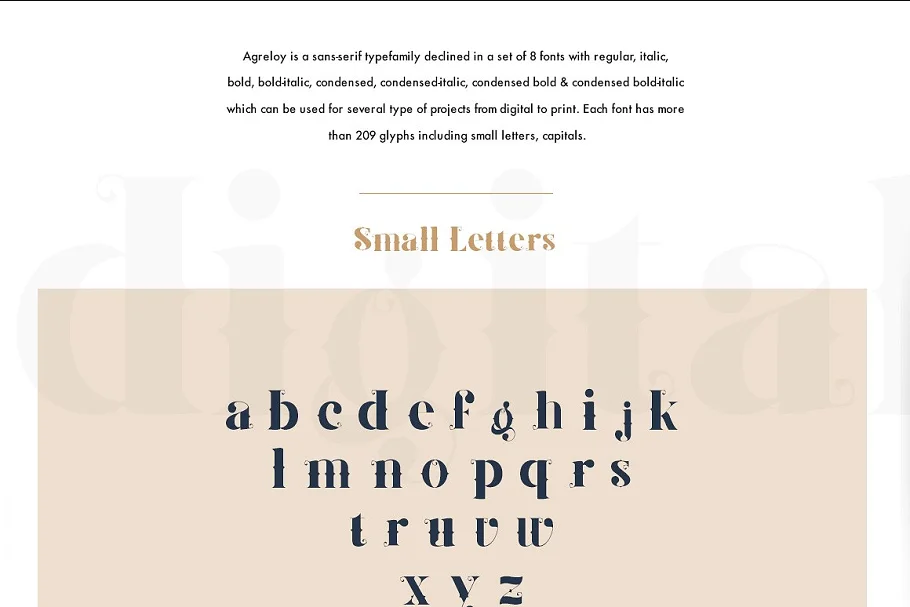
About the Agreloy Typeface Font
Introducing a new typeface called Agreloy which is perfect for Logo, Logo type, quotes, apparel design, invitations, flyers, posters, greeting cards, product packaging, headers, printed quotes, cover album, etc.